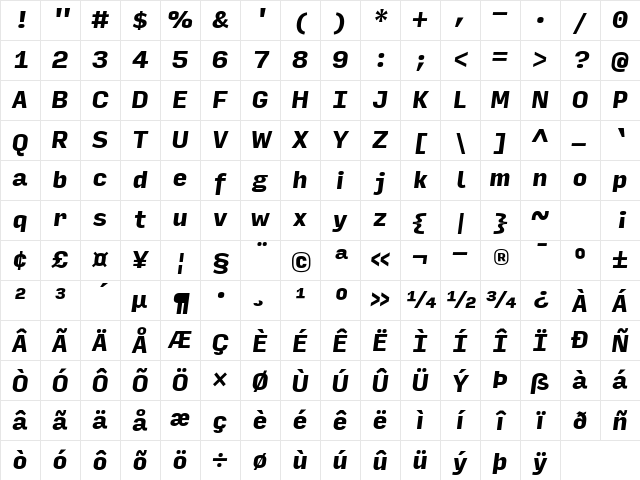
Input Sans Narrow is a composed and adaptable typeface that performs quietly and consistently across a wide range of design contexts. The slanted form adds forward momentum and visual energy. Its narrow stance lets it pack a punch even in space-constrained designs.
Pro Tip: Use Input Sans Narrow for emphasis, pull quotes, and subheadings where its slanted energy can add rhythm to the layout.